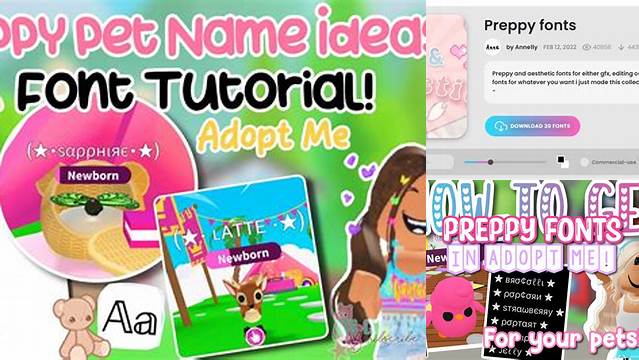
Cute Fonts For Adopt Me: Copy & Paste Guide
Hey there, fellow Adopt Me enthusiasts! Want to spice up your in-game chat, profile, or even your pet's name with some unique and adorable fonts? You've come to the right place! In this guide, we'll explore the world of cute fonts copy and paste options, making your Adopt Me experience even more fun and expressive. We'll delve into how to find these fonts, how to use them, and even some creative ideas to make your messages stand out. So, let's get started and transform your text into something truly special!
Why Use Cute Fonts in Adopt Me?
Before we dive into the how-to, let's talk about the why. Why should you bother with cute fonts? Well, in a vibrant and social game like Adopt Me, standing out from the crowd is key. Using different fonts can be a fantastic way to express your personality, add a touch of whimsy, and make your messages more engaging. Think about it: a simple "Hi!" can become a friendly and inviting "Hi!" with a cute, bubbly font.
Moreover, using cute fonts can enhance your roleplaying experience. Imagine giving your fancy pet a name in a stylish font or using a specific font to communicate in-character. It adds a layer of immersion and fun to your gameplay. Different fonts can evoke different emotions and styles. A script font might make your message seem elegant and sophisticated, while a bubbly font can convey playfulness and excitement. The possibilities are endless, and it's all about finding the fonts that resonate with your personal style and the message you want to convey. Let's not forget the practical side either. In a busy chat filled with messages, unique fonts can help your messages catch the eye, ensuring you're seen and heard. Whether you're trading, making friends, or simply chatting, a distinctive font can make all the difference.
Where to Find Cute Fonts for Copy and Paste
Now, the million-dollar question: where do you find these magical fonts? The internet is your best friend here! There are tons of websites and apps dedicated to generating cool and cute fonts that you can easily copy and paste. Let's explore some of the most popular options:
- Font Generators: Websites like LingoJam, Cool Font, and Fancy Text Generator are goldmines for unique fonts. These sites typically have a simple interface: you type in your text, and the website generates the same text in various stylish fonts. All you have to do is copy the font you like and paste it into Adopt Me. These generators offer a vast range of styles, from elegant scripts to playful bubble fonts, ensuring you'll find something that matches your vibe.
- Mobile Apps: If you prefer using your phone or tablet, there are numerous apps available for both iOS and Android that do the same thing. Apps like Stylish Text and Fonts are incredibly convenient for generating fonts on the go. They often come with additional features like creating custom fonts and saving your favorite styles for future use. Plus, they're usually optimized for mobile use, making the whole copy-and-paste process a breeze.
- Social Media Tools: Surprisingly, some social media tools also have built-in font generators. For example, certain Instagram story features allow you to use different fonts that you can copy and paste elsewhere. While these might not be as extensive as dedicated font generators, they can be a quick and easy way to grab a cute font if you're already on social media.
When choosing a font generator or app, consider factors like the variety of fonts offered, the ease of use, and whether it's compatible with your device. Most importantly, make sure the fonts generated are compatible with Adopt Me's text input system. This usually isn't an issue, but it's always good to double-check. Once you've found your go-to source for fonts, it's time to start experimenting and discovering your favorites. Remember, the goal is to express yourself, so have fun exploring the different styles and finding the ones that truly resonate with you!
How to Copy and Paste Fonts in Adopt Me
Alright, you've found your perfect cute font. Now, let's get it into Adopt Me! The copy-and-paste process is super straightforward, but here's a step-by-step guide to make sure you nail it every time:
- Generate Your Text: Head over to your chosen font generator website or app and type in the text you want to transform. This could be anything from your username to a fun message for your friends.
- Select and Copy: Browse through the generated fonts and find the one that tickles your fancy. Once you've found it, simply select the text and copy it. Most websites and apps have a convenient "Copy" button that makes this even easier. On a computer, you can usually right-click and select "Copy" or use the keyboard shortcut Ctrl+C (or Command+C on a Mac). On a mobile device, tap and hold the text to bring up the copy options.
- Paste into Adopt Me: Open Adopt Me and navigate to the text input field where you want to use your fancy font. This could be your chat box, your profile bio, or even the name of your pet. Tap or click on the text field to bring up the typing interface. Then, paste the copied text by right-clicking and selecting "Paste" or using the keyboard shortcut Ctrl+V (or Command+V on a Mac). On a mobile device, tap and hold the text field until the paste option appears.
- Preview and Send: Before you hit that send button, take a quick peek to make sure the font looks exactly as you intended. Sometimes, certain fonts might not display perfectly in the game, so it's always good to double-check. If everything looks good, go ahead and send your message or save your changes.
So go ahead, explore the font-tastic world of Adopt Me and let your creativity run wild! With a little practice and experimentation, you'll be a font-copying master in no time. And who knows, you might even inspire other players to embrace the power of cute fonts and add a touch of flair to their own gameplay. Happy font-ing, and see you in Adopt Me!